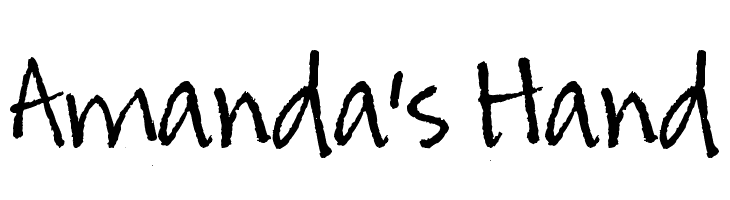
( Font by Ben Nathan - www.hafontia.com )
A playful, handwritten font with fluid, dynamic strokes and a casual style.
A clean, modern font with geometric shapes and uniform line thickness.
( https://www.behance.net/katharinehoward )
A bold, playful handwritten font with rounded, dynamic characters.
( Fonts by Nick Curtis - www.nicksfonts.com )
A playful and whimsical font with bold, rounded letterforms and a quirky aesthetic.
( Fonts by Nick Curtis - www.nicksfonts.com )
A playful, bold font with a shadow effect and whimsical, cartoonish style.
( Fonts by Xerographer Fonts )